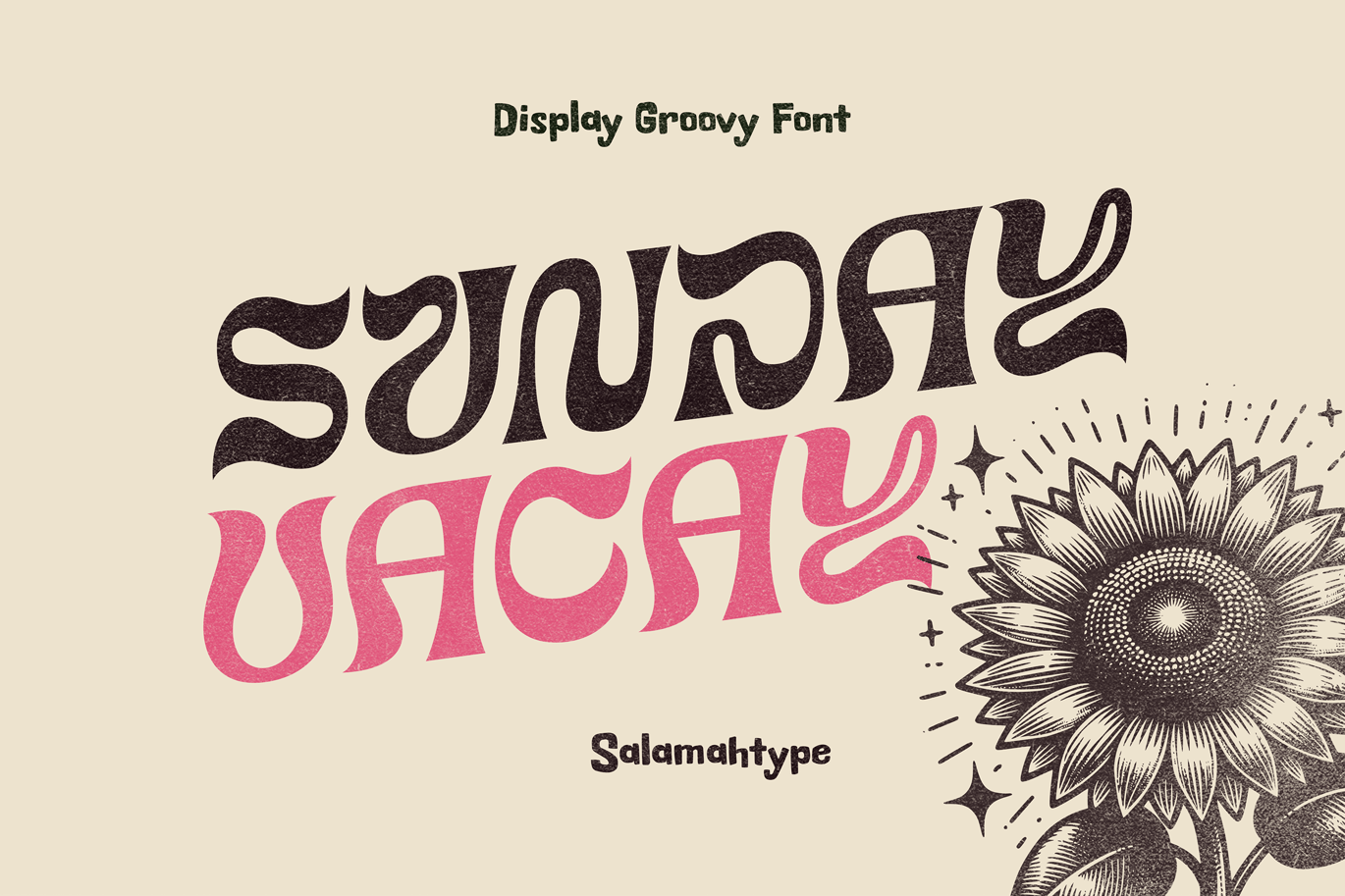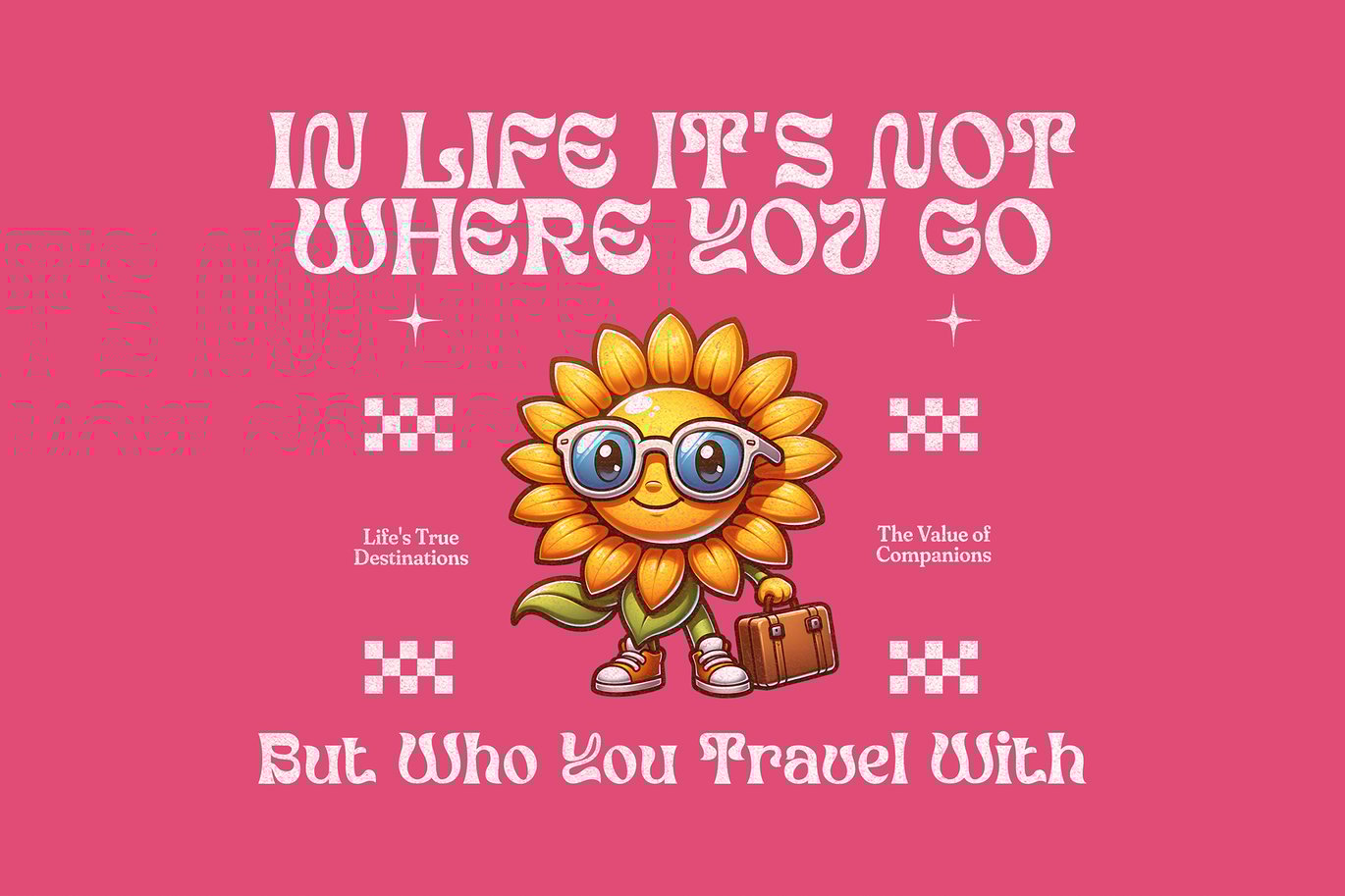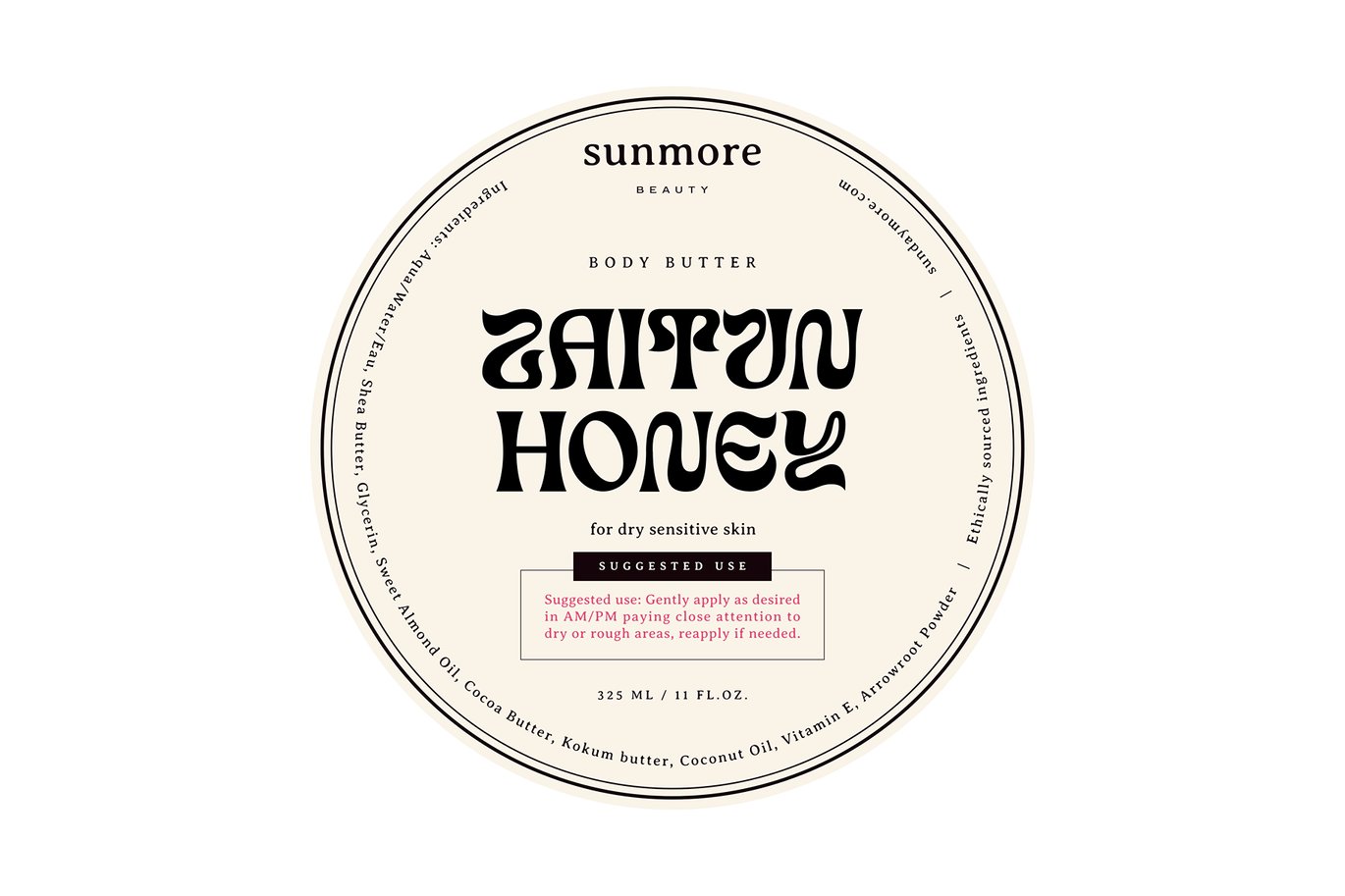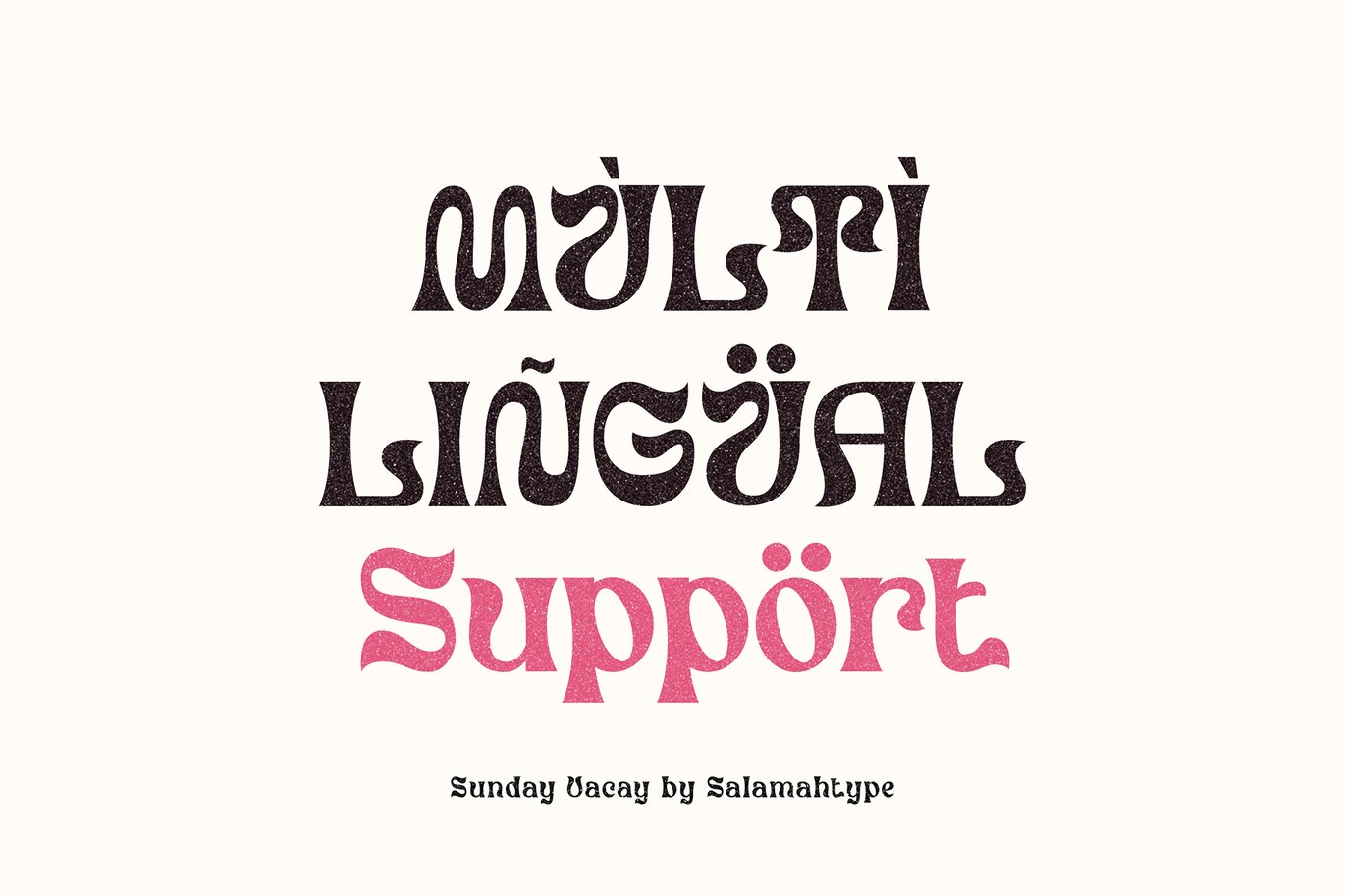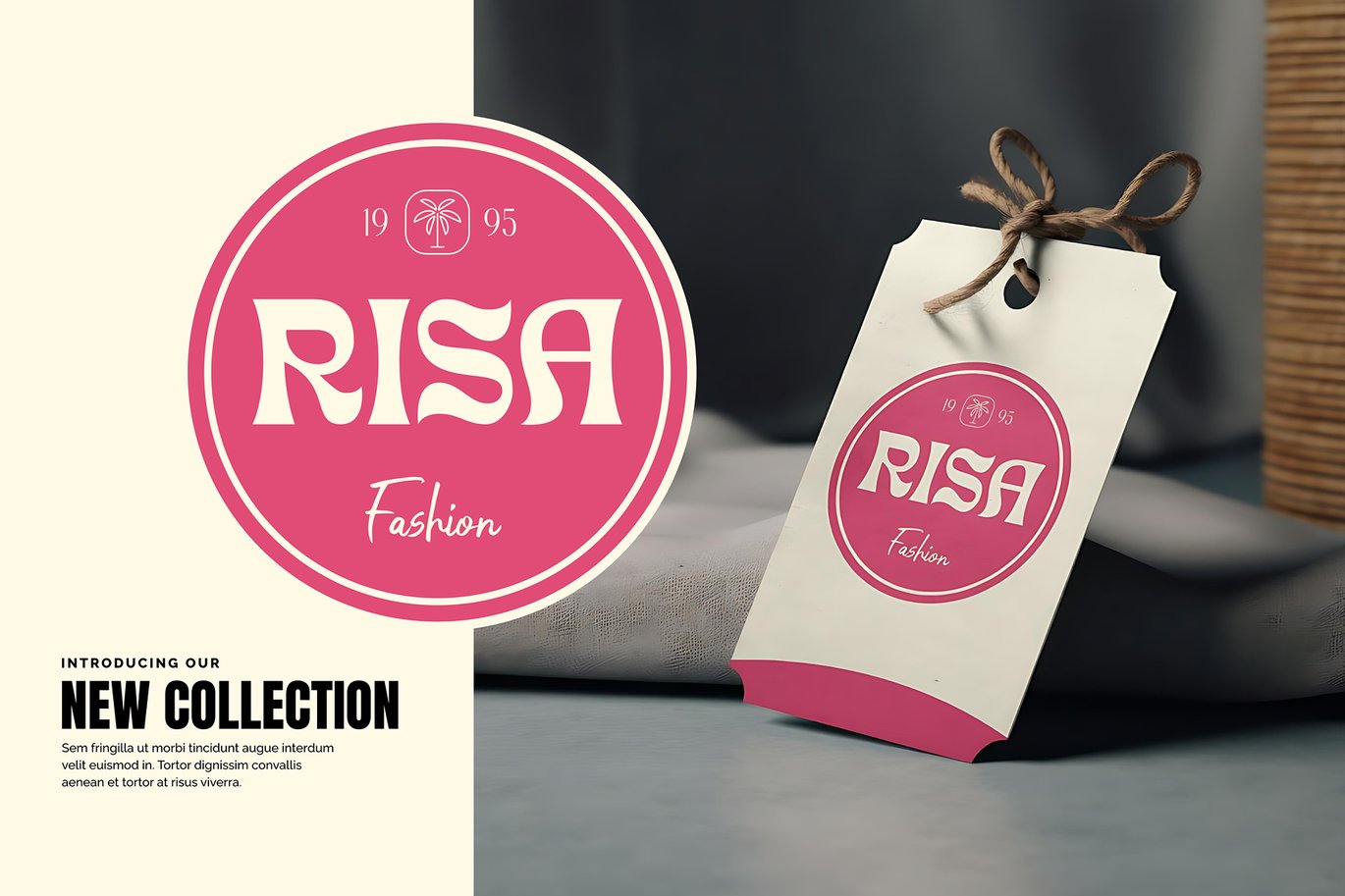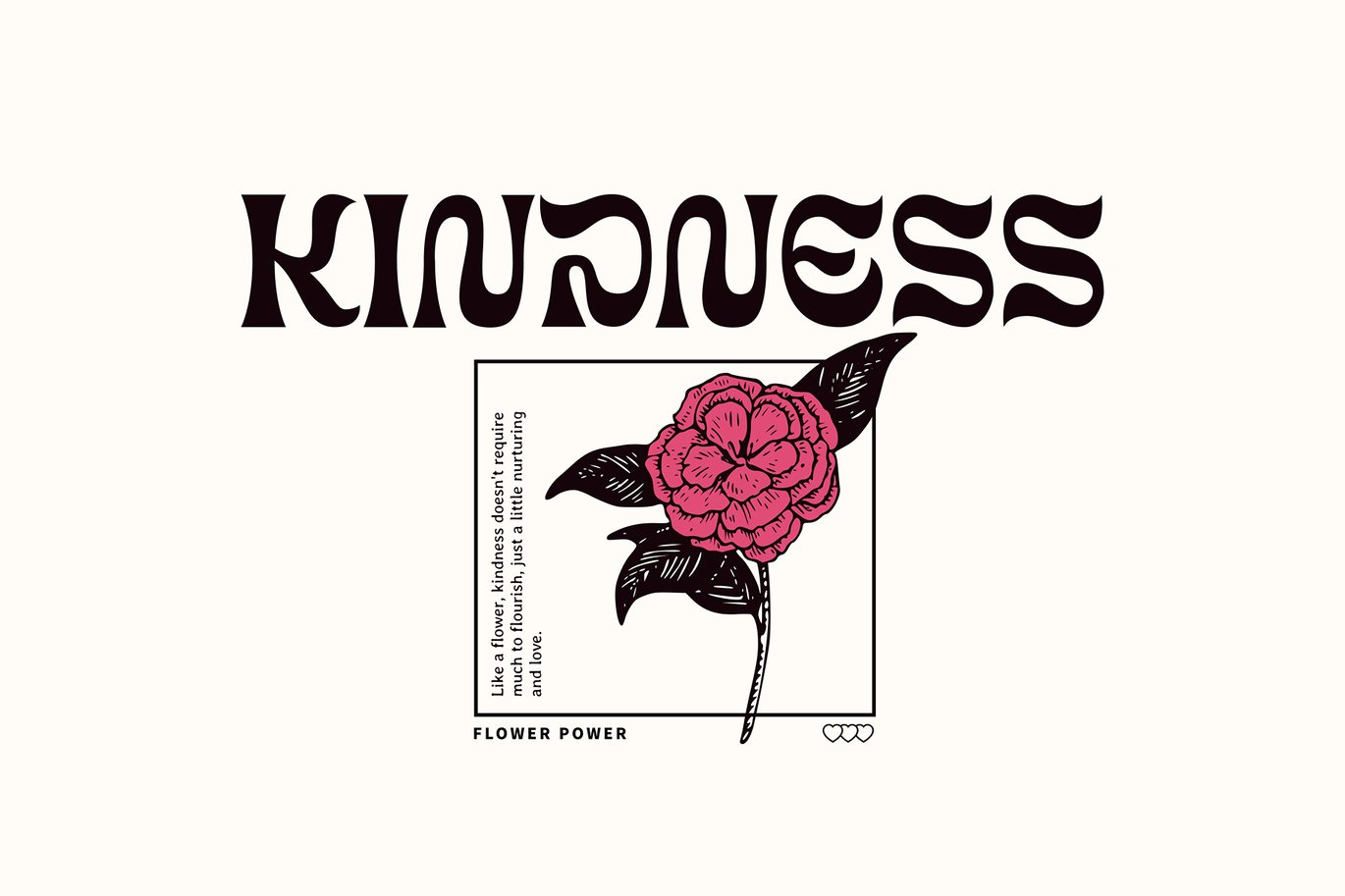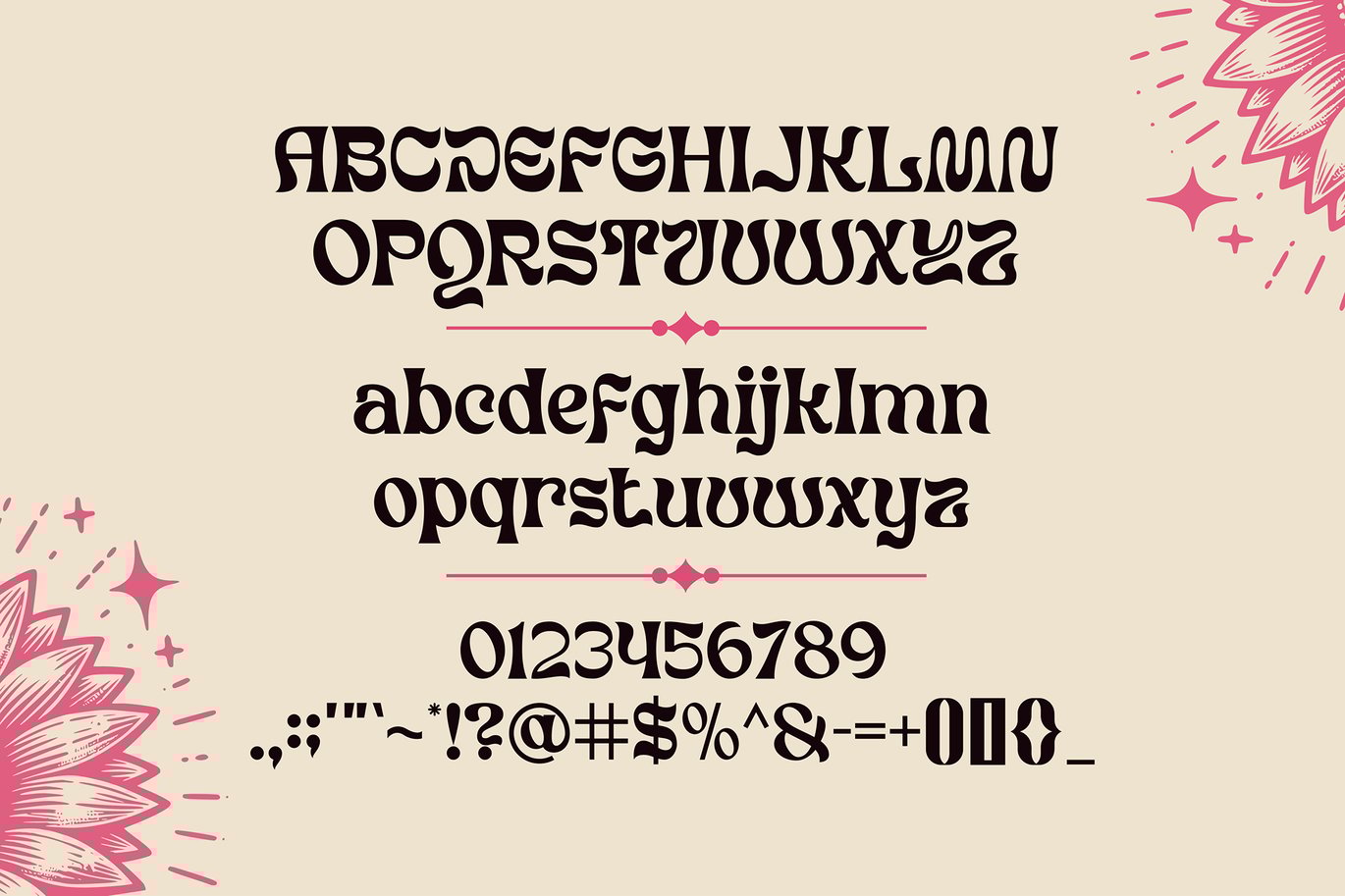
Sunday Vacay Groovy Font
“Sunday Vacay” is a groovy and fun font perfect for adding a touch of flair to tags, labels, logos, brand names, magazines, and more. Its playful design and vibrant style make it ideal for any project that needs a lively and eye-catching touch.